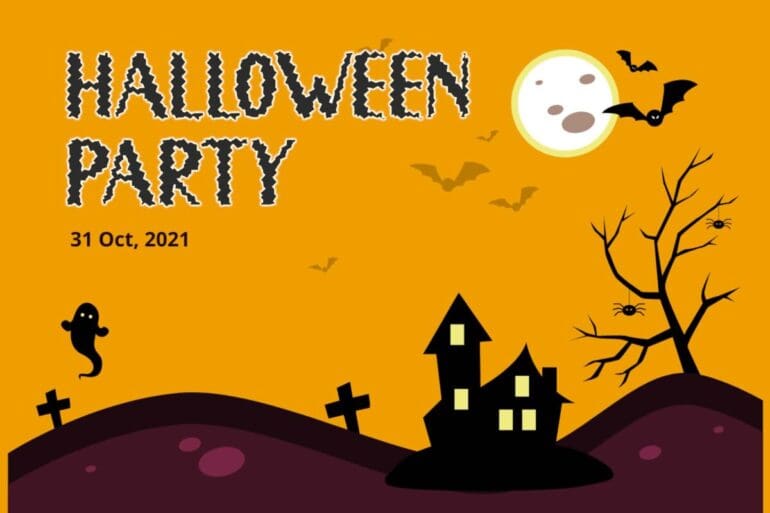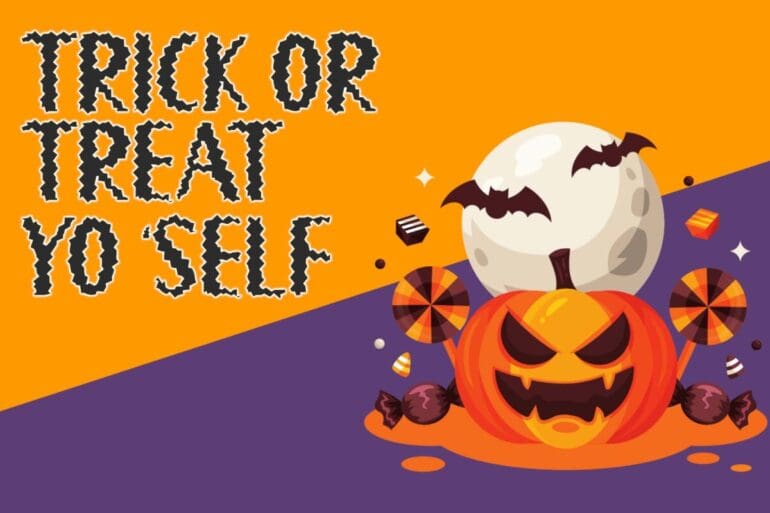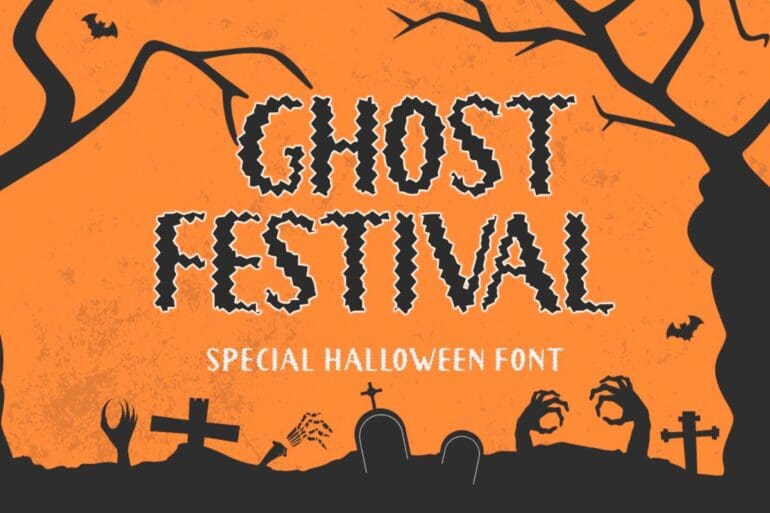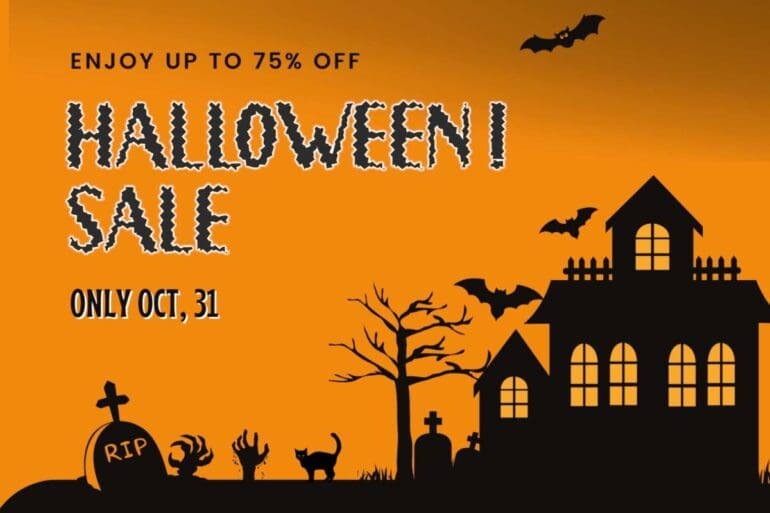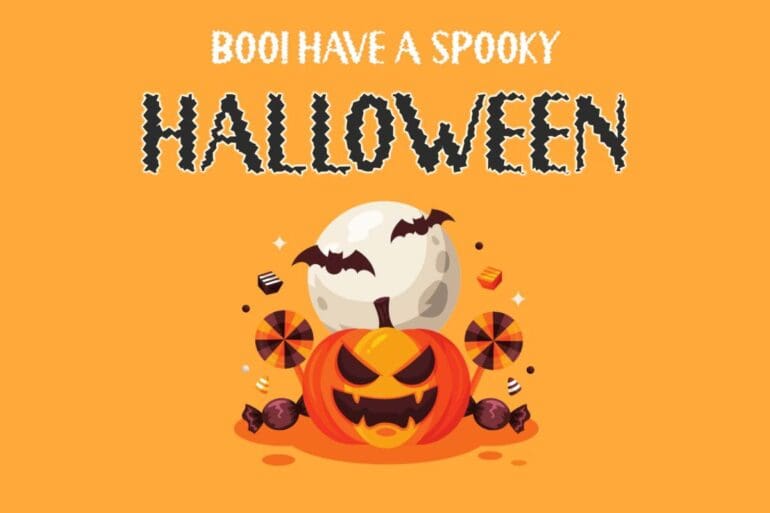
Ghost Festival Font
Ghost Festival is a special Halloween font. This font has a jagged character and is perfect for Halloween. It is very easy to use because it has been specially designed.